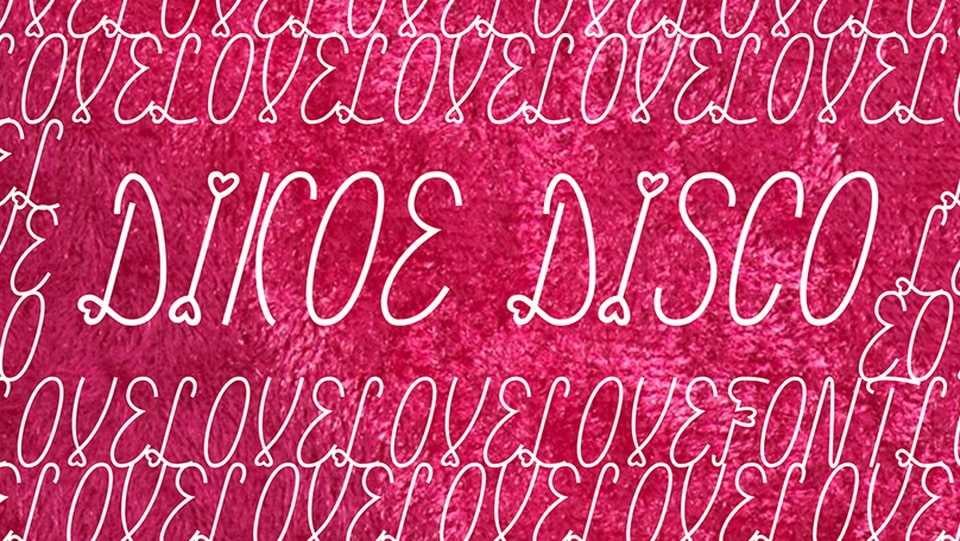
Download Dikoe Disco font, a unique display typeface is dedicated to St. Petersburg parties series of the same name. It is an accent font for large sizes, which will bring wildness to everything, wherever it appears!